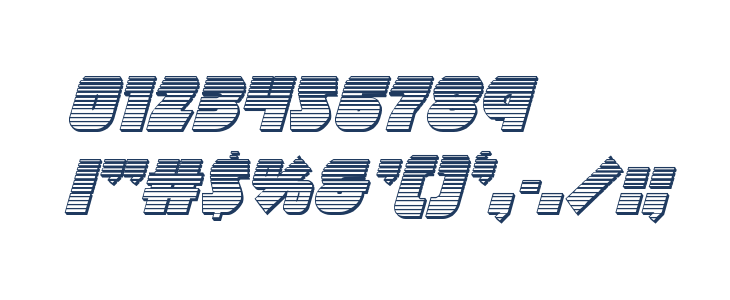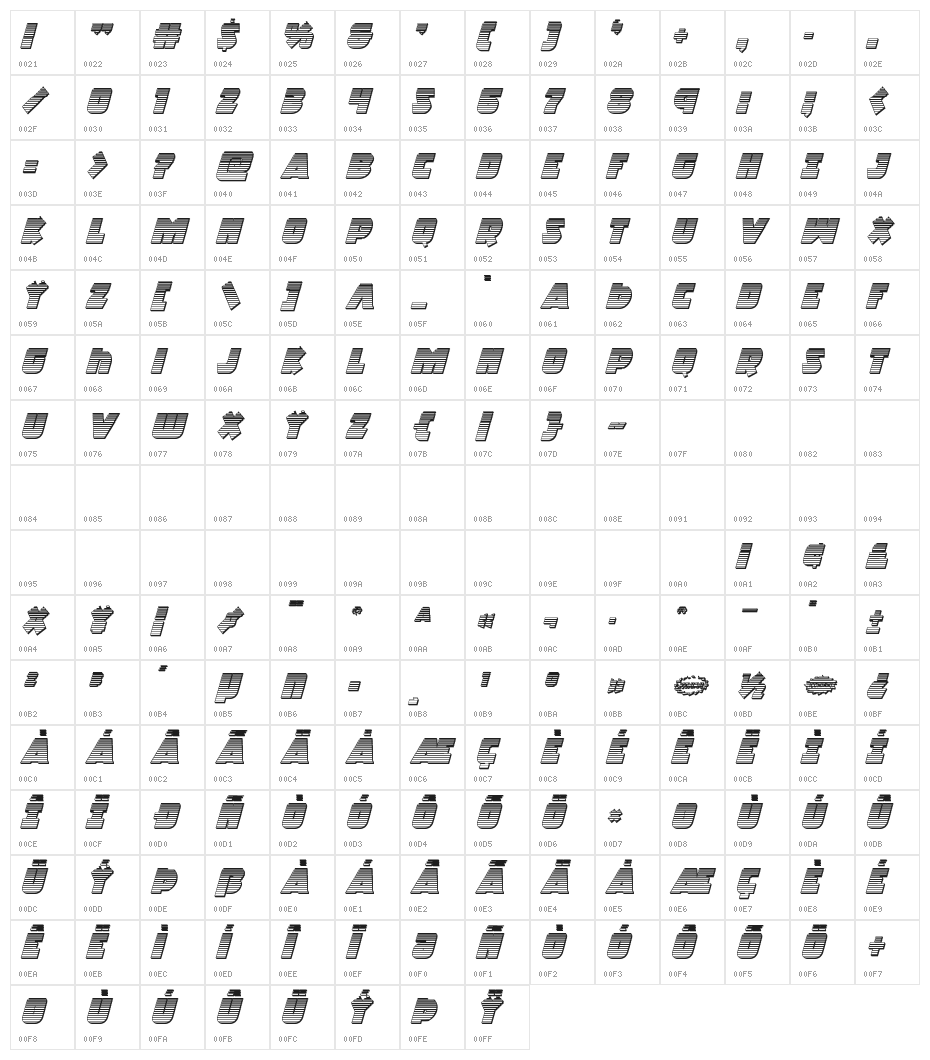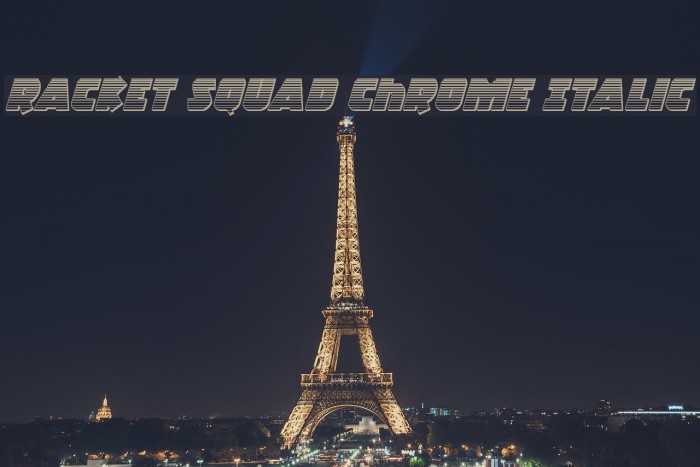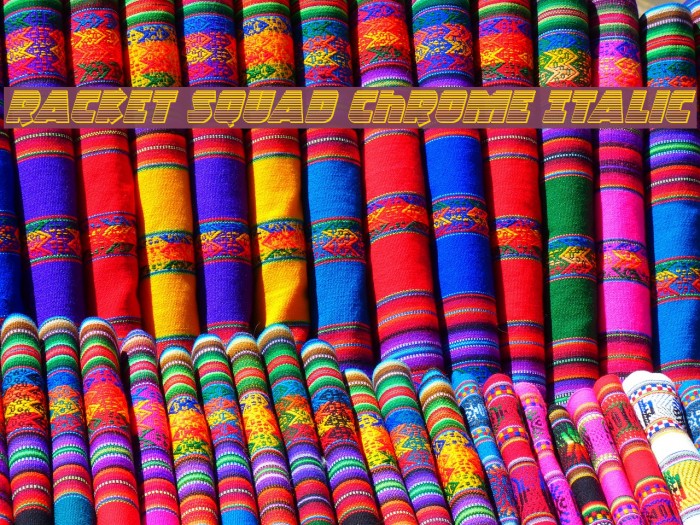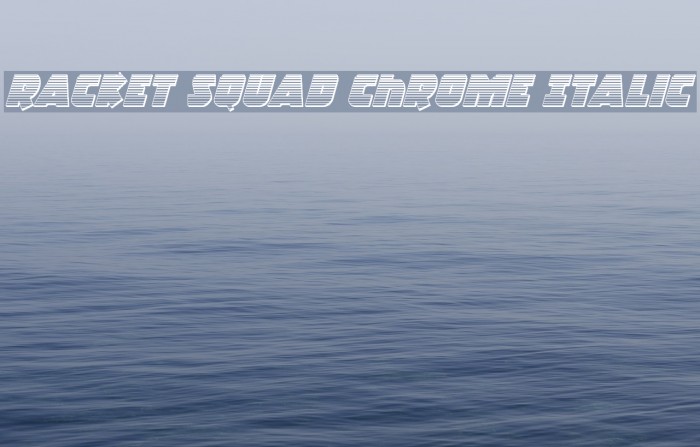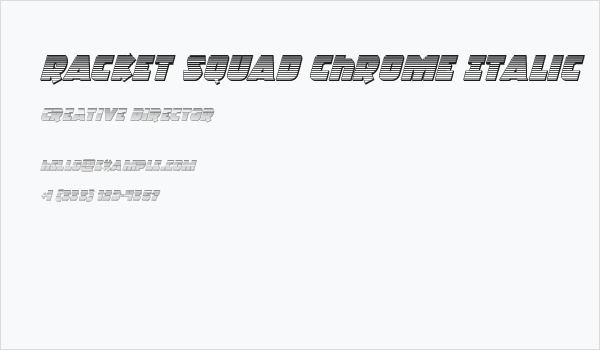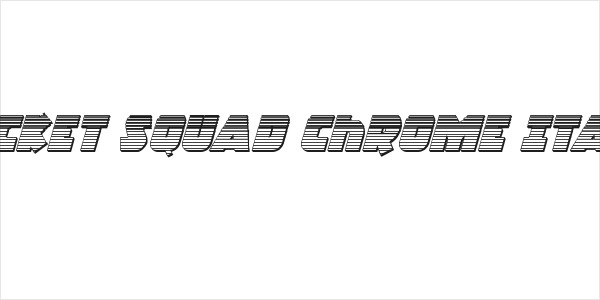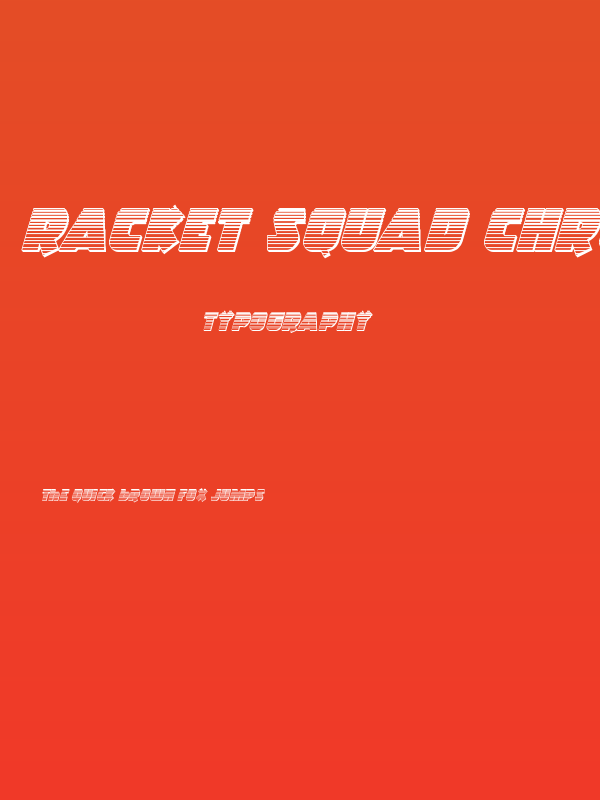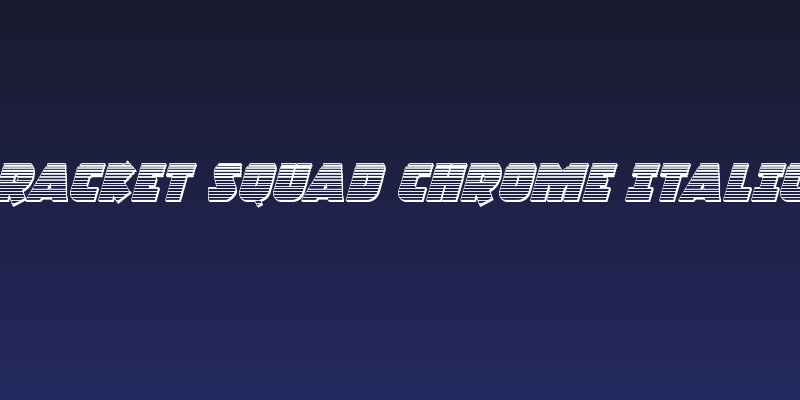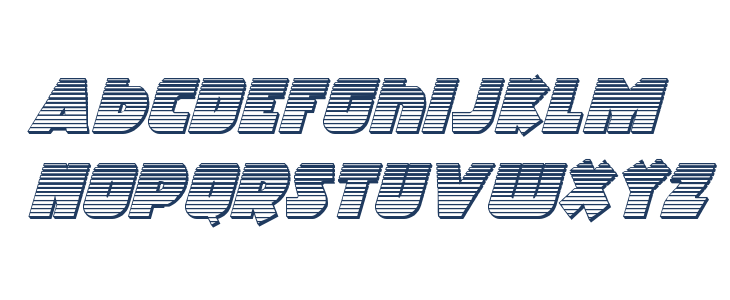
Racket Squad Chrome Italic Font
Racket Squad Chrome Italic Description
This font features a bold, italicized style with a distinct chrome-like appearance. The characters are designed with horizontal lines that create a sense of movement and depth, giving it a futuristic and dynamic look. The uppercase and lowercase letters maintain a consistent width, while the numbers and special characters follow the same design principles, ensuring uniformity across all glyphs. The font's unique design makes it stand out, with each character appearing as if it's in motion, thanks to the angled lines and italic slant. This font is perfect for projects that require a modern and edgy aesthetic.
| Proposed Projects | Ideal for futuristic designs, tech branding, video game titles, and dynamic posters. |